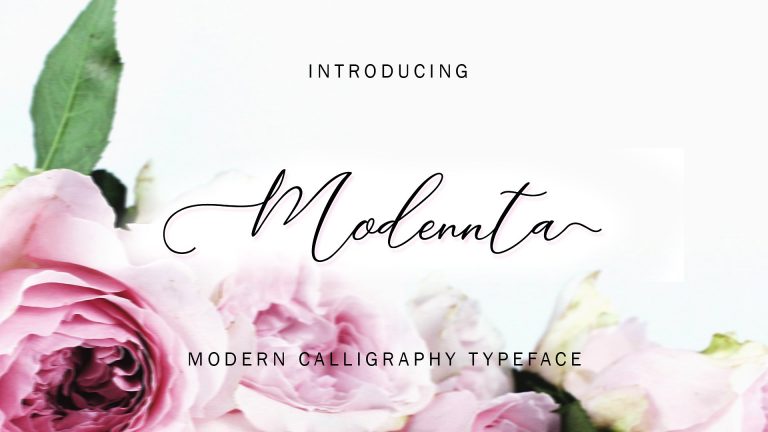
Modennta Script Font
Modennta – a modern calligraphy typeface. It is a typeface that will make your work more beautiful and impressive with your customers. It is designed and shared by InkCreativeArt. Modennta Font – An elegant and easy-to-read font, even being a script. This font is created with a semibold handwriting style. This typeface is great for logos, tittle, headline, tagline, tshirt, handwritten quotes, product packaging, poster, merchandise, social media, labels, branding, greeting cards, etc.